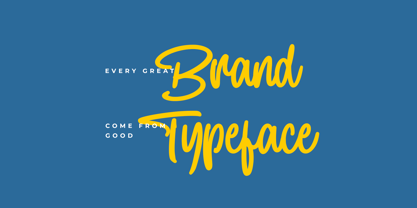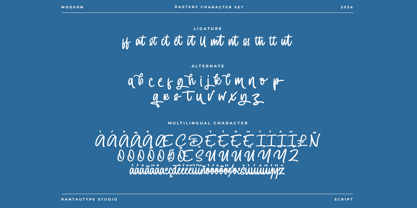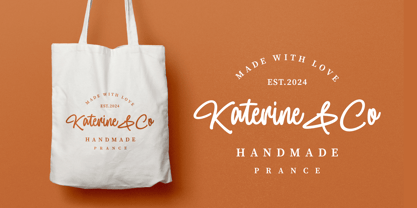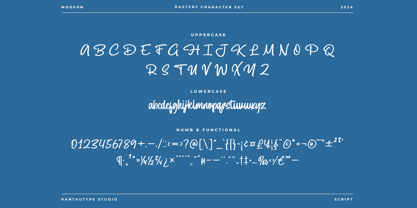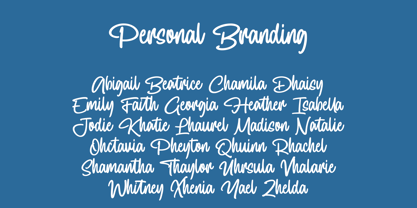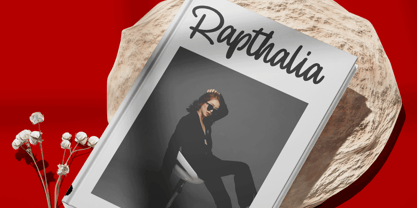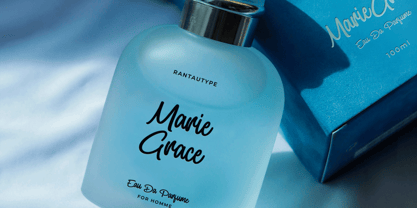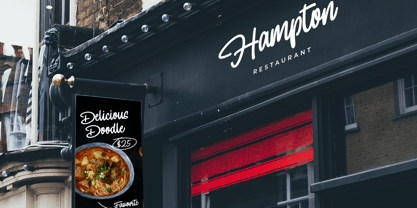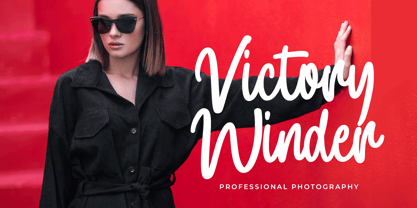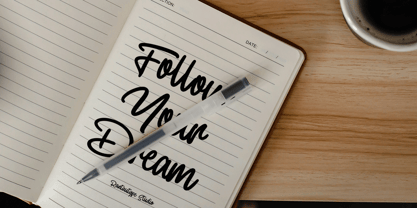
Dastery
by RantauType
The Dastery Font Family was designed by Yudi Pratama Chandra and published by RantauType. Dastery contains 1 styles. More about this family
Dastery is modern script font come with rounded style make it look natural. Dastery is a perfect choice for any creative endeavor, lifestyle design such as logos, title, watermark on photography, cover, branding, display and magazine, wedding event, corporate brand, quotes, album cover, business card, business project, company branding and more project with handwritten taste.
• Standart Glyphs
• Numberial and Functional
• Ligature and alternate